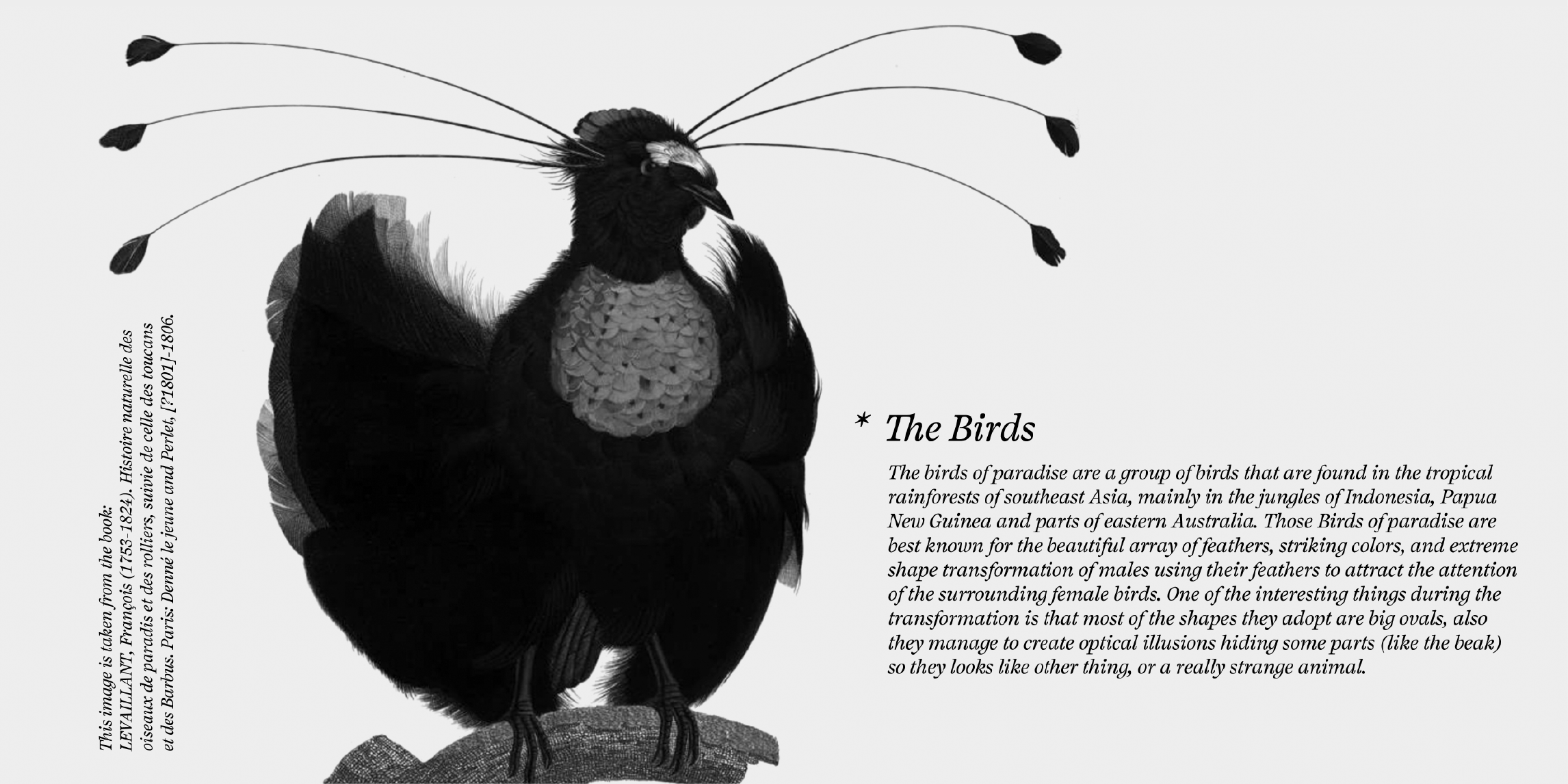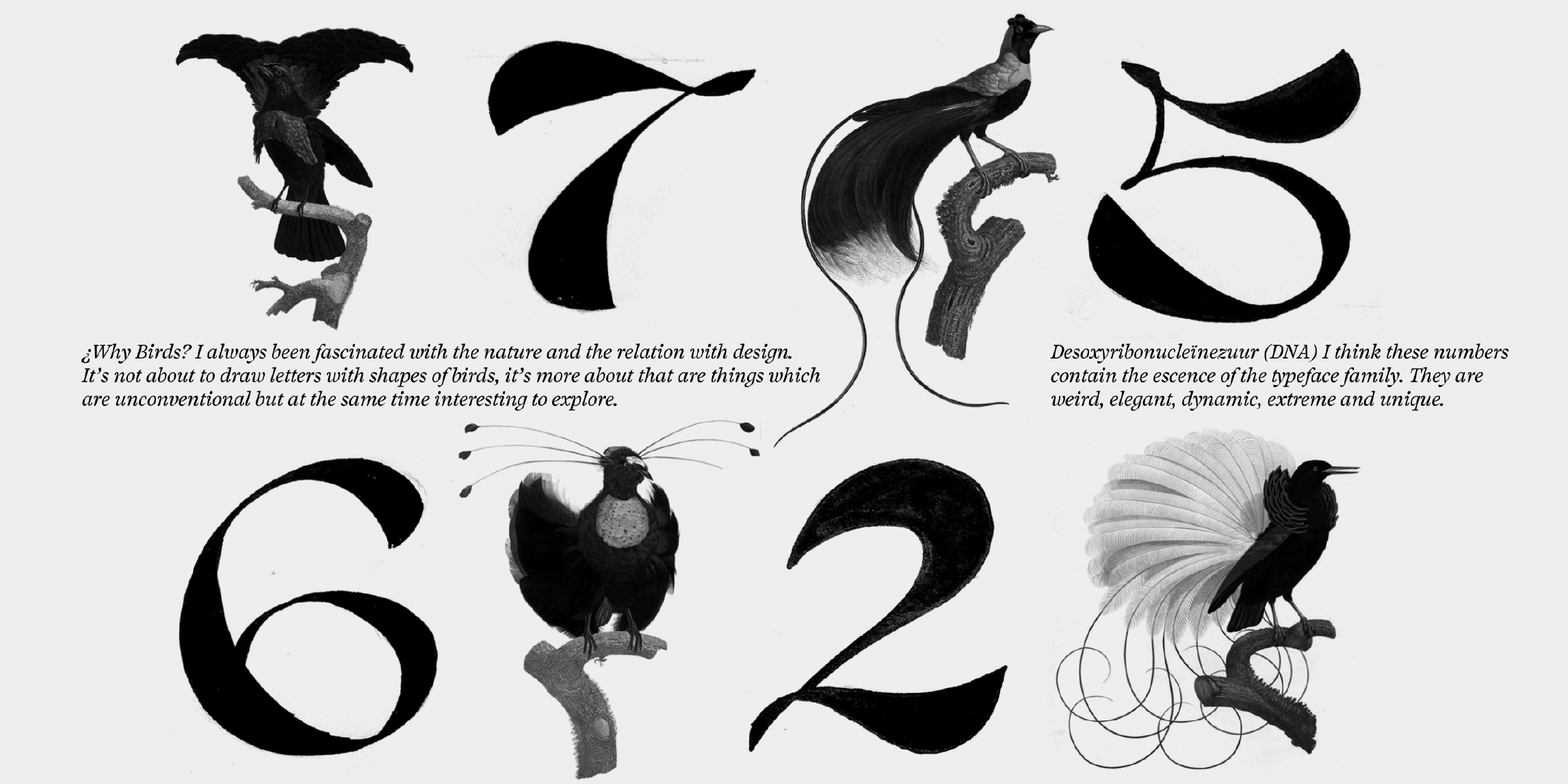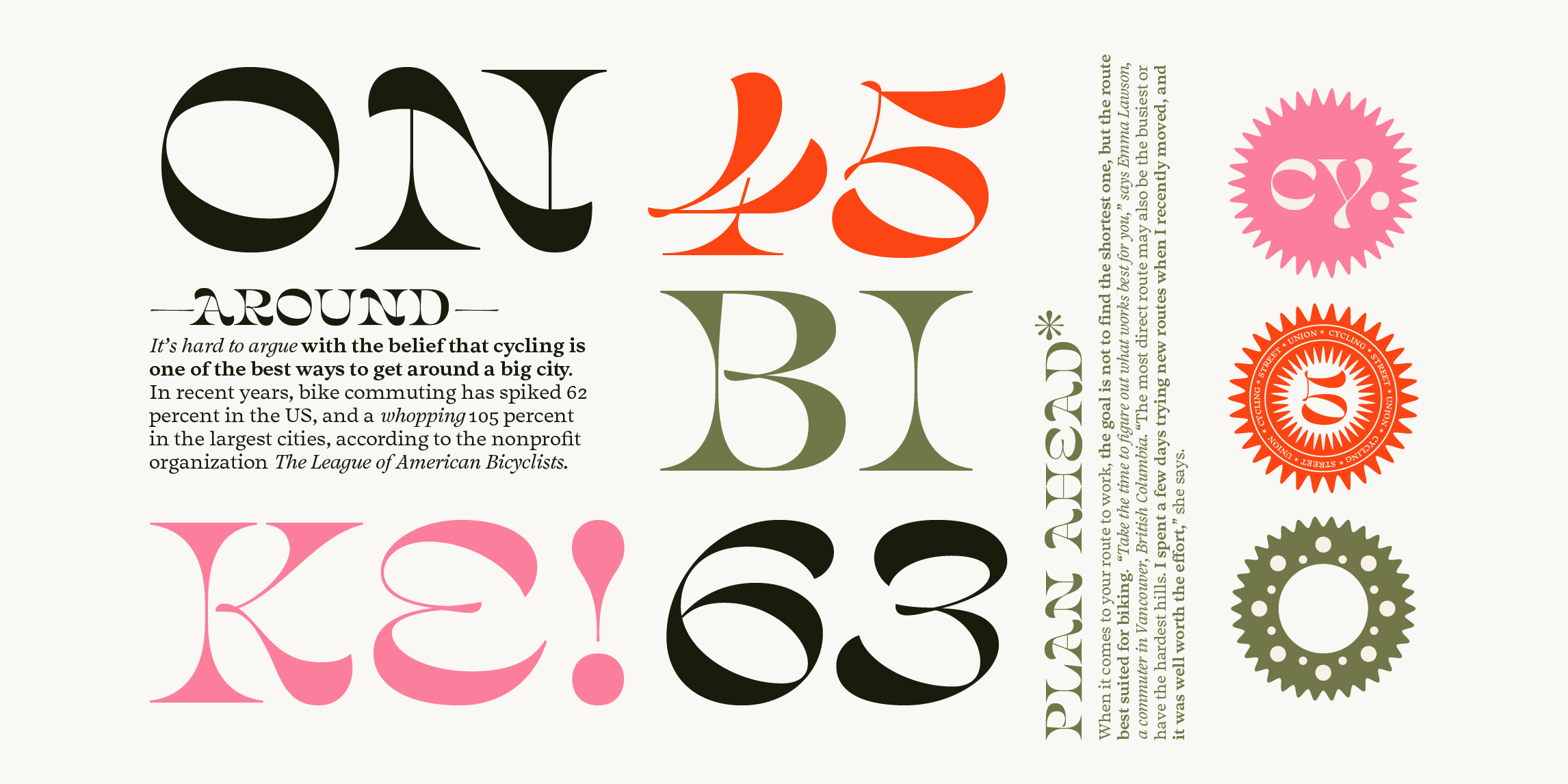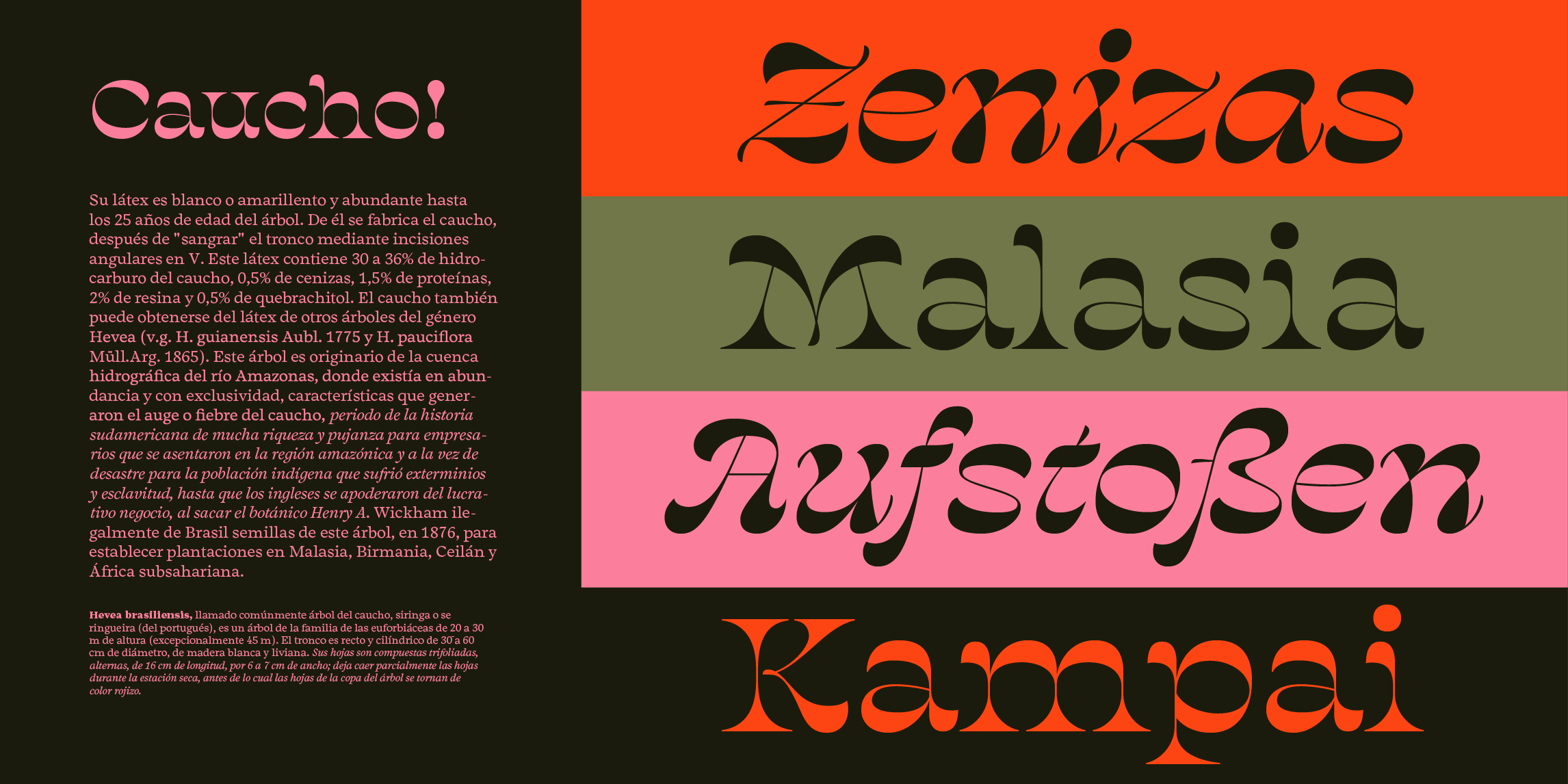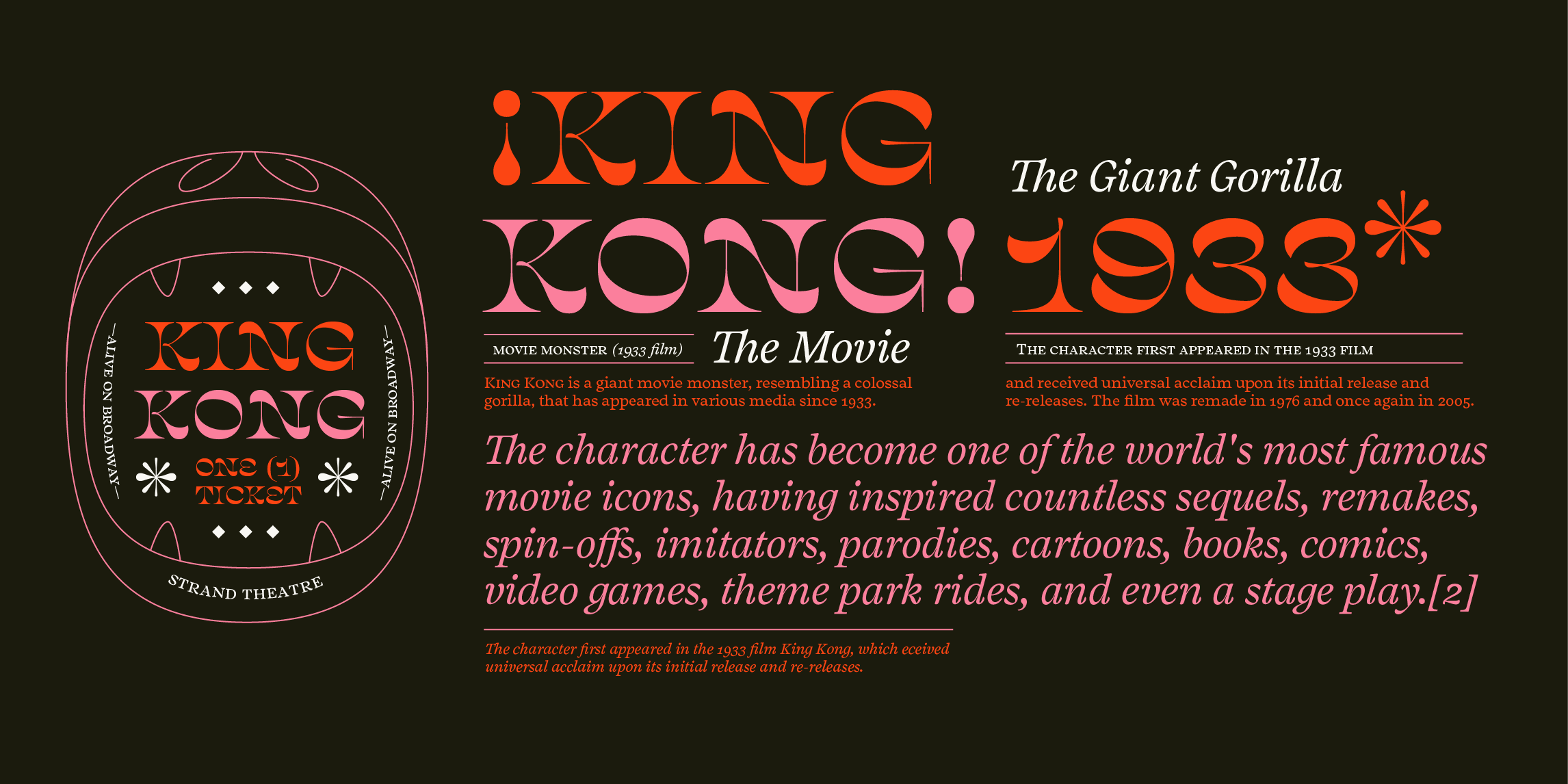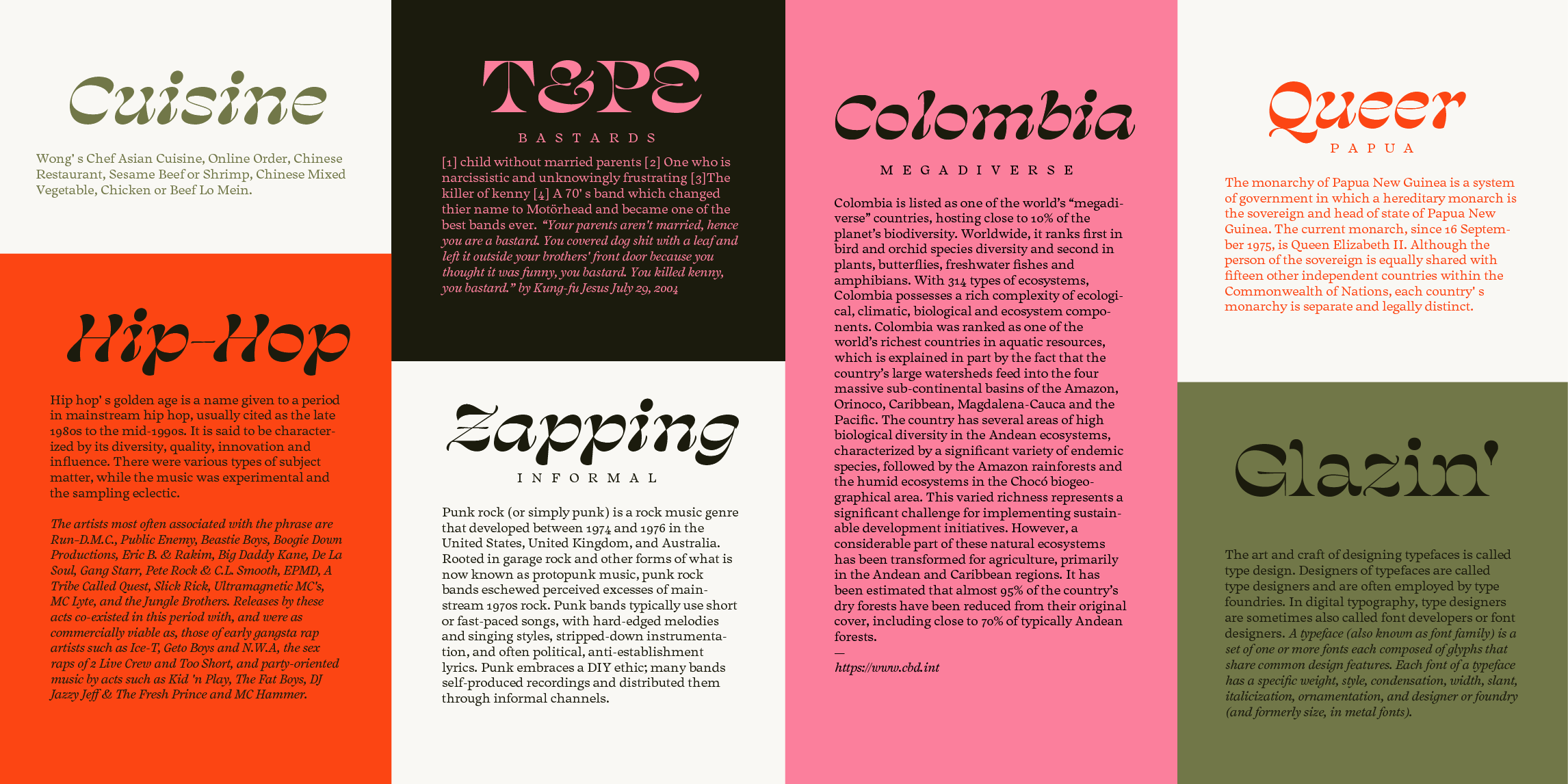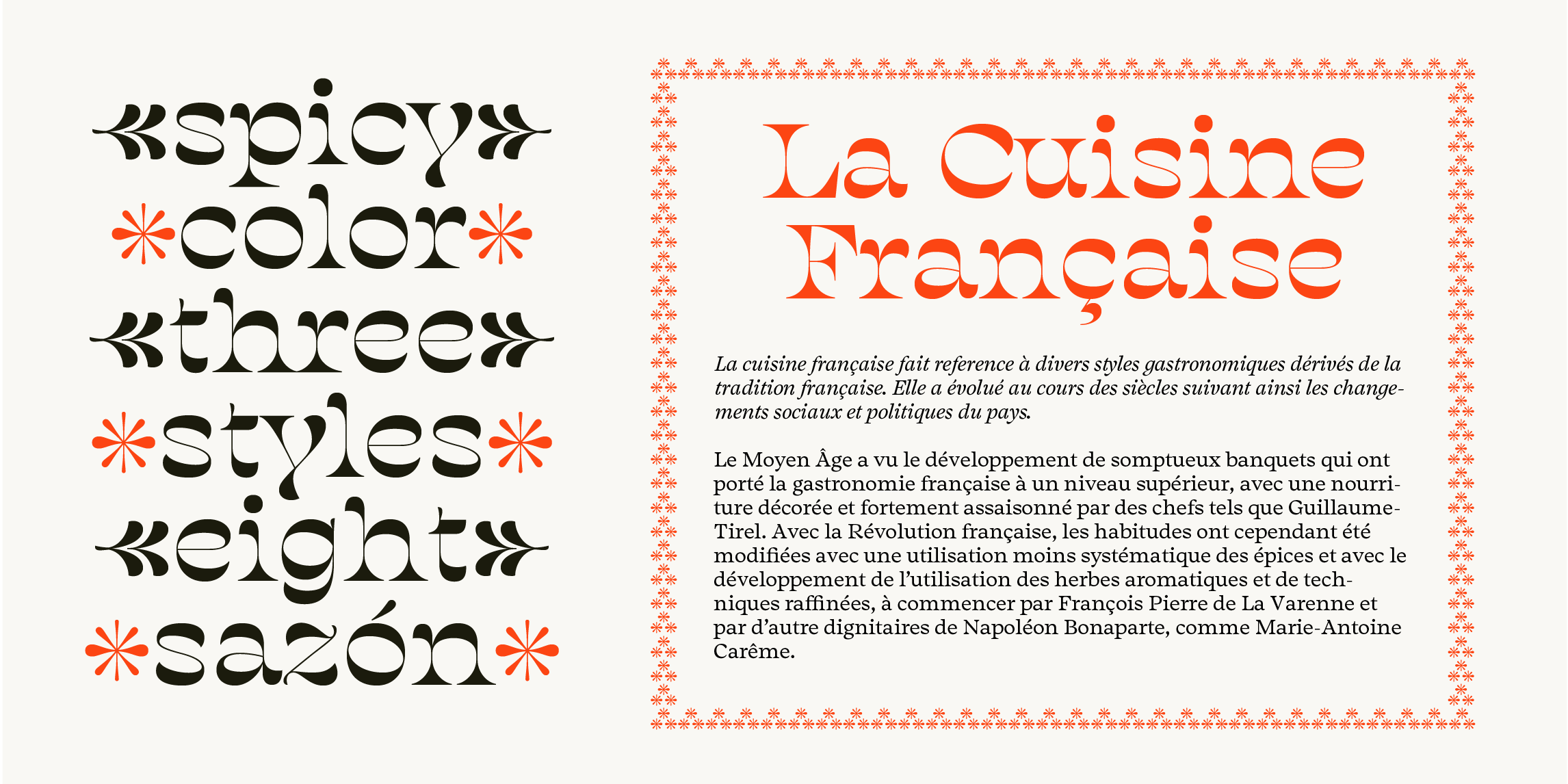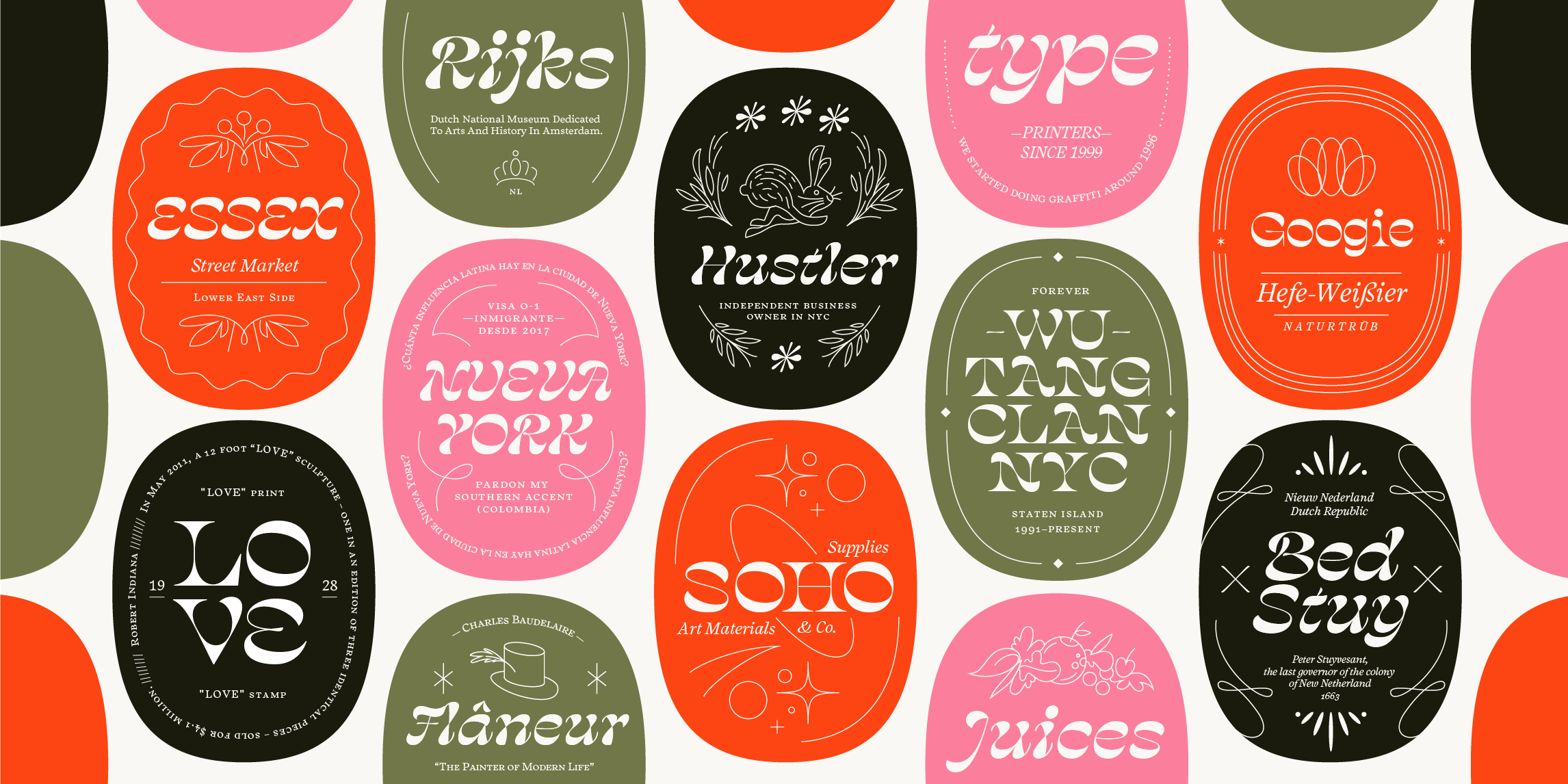
Name: Salvaje
Designer: Cristian Vargas
Foundry: Typozon
Release Date: July 2018
Back Story: Design inspiration tends to hit home when the mind is in neutral and the mood relaxed, creating a heightened receptiveness to new ideas and observations. At moments like this, the insane plumage and postures of a bird of paradise can seem like a great starting point for a typeface. At least, it was for Cristian Vargas when he came across an online source full of illustrations of the strange bird—denizens of the tropical rainforests and jungles of Indonesia, Papua New Guinea, and parts of eastern Australia—while he was studying at the Royal Academy of Art (KABK) in The Netherlands.
For Vargas, the lavish drawings sparked a memory of a BBC video he’d seen years ago on the same subject. After revisiting it, Vargas realized there was a similarity between the shape of the birds and a set of numbers he’d recently sketched out. Then he drew on some larger connections: male birds of paradise completely alter their appearance during elaborate courtship rituals, flashing long, colorful, tufted, trailing plumes to attract females. To Vargas, the “normal” non-courting state of the bird, in which it looks like a basic bird very much like any other, felt analogous to a text typeface—both are more functional than visually attractive. In that vein, a bird of paradise in showy, courting mode was very similar to a display typeface: transformed, striking, and meant to get maximum attention. Just like that, he’d found the visual concept for an entire typeface. Salvaje won a medal from the TDC in 2017.
Why’s it called Salvaje? Salvaje means “savage” or “wild” in Spanish. As Vargas explains, he started designing the typeface backwards, starting with the numbers, then translating the logic into uppercase, lowercase, and symbols. “Usually we start with control characters and then expand the idea to caps, lowercase, and finally numbers and symbols,” he says. “Here everything started with sketches of numbers, which I thought were interesting in a way that I couldn’t explain. The experience was like trying to domesticate a wild creature.”
The name, he says, is meant to allude to something “exotic, beautiful, extreme, and weird, that you can only find in the deep woods of an island like New Guinea.”
What are its distinguishing characteristics? Salvaje has two display and two text styles. Its wide reverse contrast letters combine thick and thin organic forms that create visual illusions of depth, almost like folded shapes. The text and display faces are equally charming, a tough trick to pull off. The display’s italics push and pull their stroke weights around themselves, almost like twisting a flat stiff ribbon—or a feather.
What should I use it for? The designer prefers not to suggest a specific use. “This typeface has a lot of personality and it’s not neutral at all,” Vargas says. “It’s quite open and varied—so far the people who have contacted me to buy it have mentioned they wanted to use it on magazines, book covers, logos, album designs and even a clothing line related to capoeira.”
What other typefaces do you like to pair it with? Salvaje looks best with san-serif typefaces with regular roman proportions such as FF Scala Sans and Neue Plak.